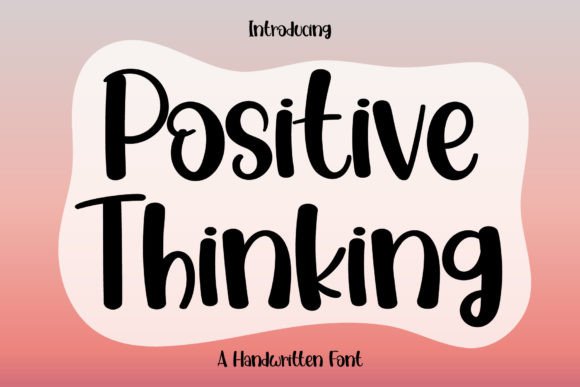
**Introducing Positive Thinking: The Font That Inspires Joy and Creativity**
Embrace positivity and ignite your imagination with Positive Thinking, an enchanting script font that captivates with its playful charm.
Unlike ordinary fonts, Positive Thinking is a masterpiece that dances across your screen, evoking a sense of warmth and happiness. Its graceful curves and flowing lines emulate the effortless penmanship of a skilled calligrapher, adding a touch of elegance to your designs.
Whether you're crafting eye-catching brochures, designing heartfelt invitations, or personalizing your social media presence, Positive Thinking is the perfect choice. Its versatility extends from digital creations to tangible works of art, transforming your ideas into stunning masterpieces.